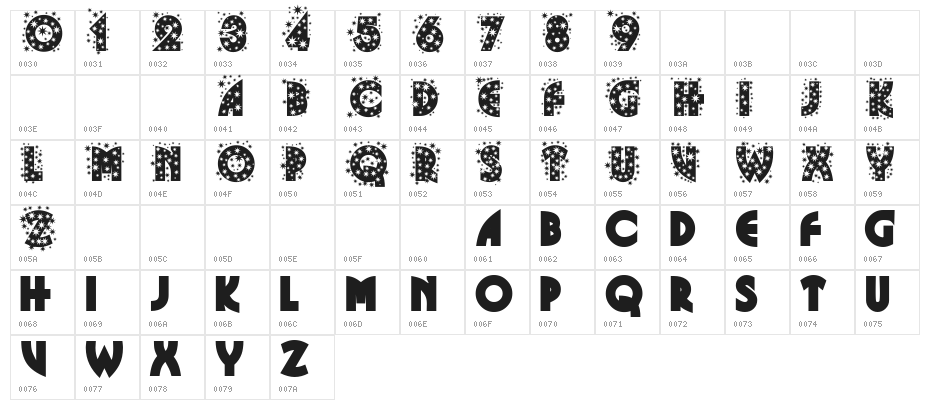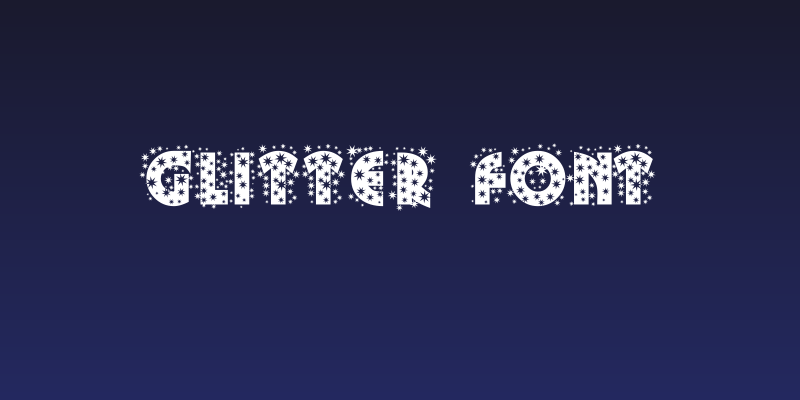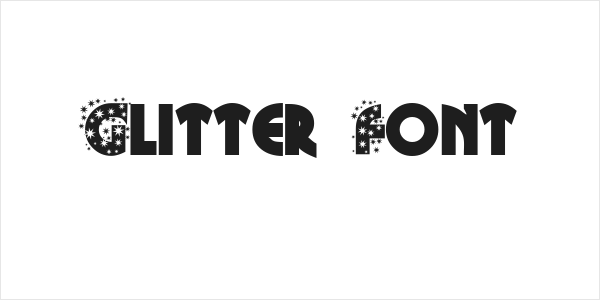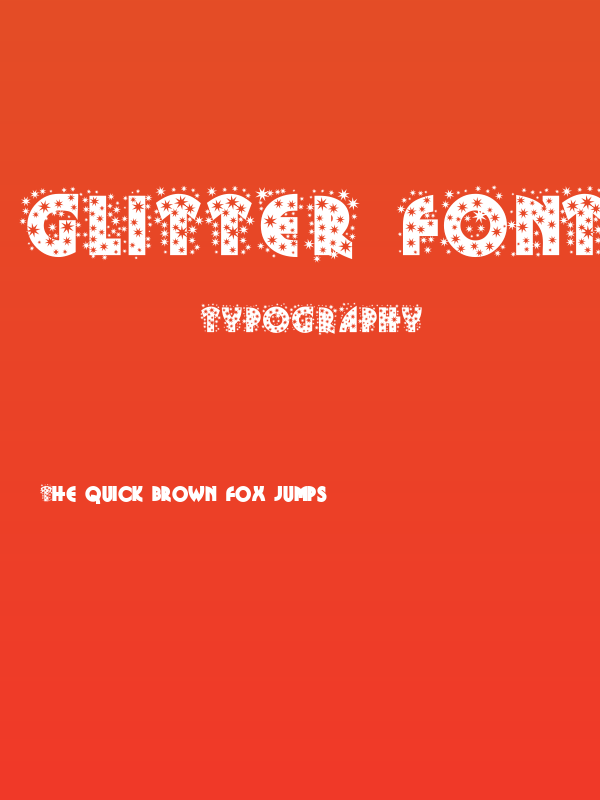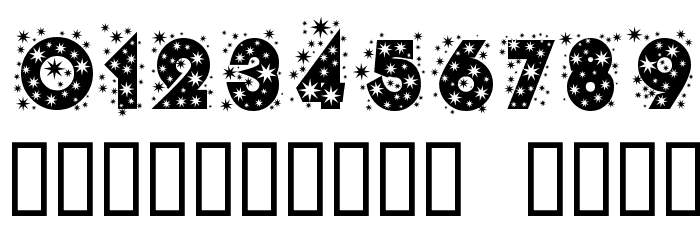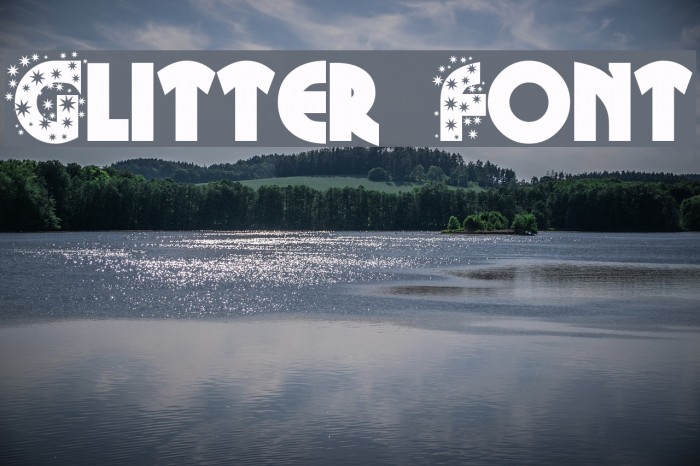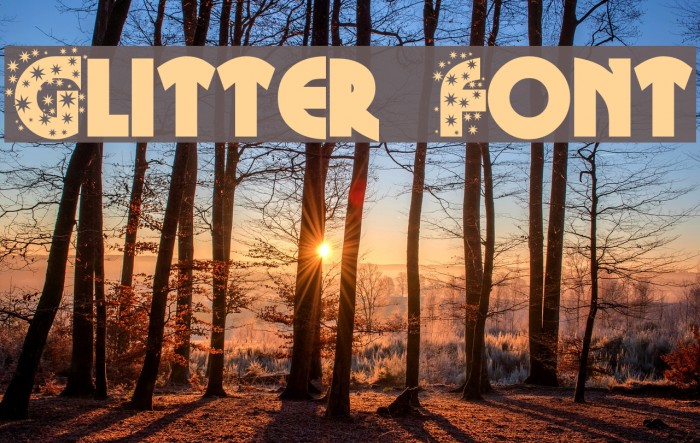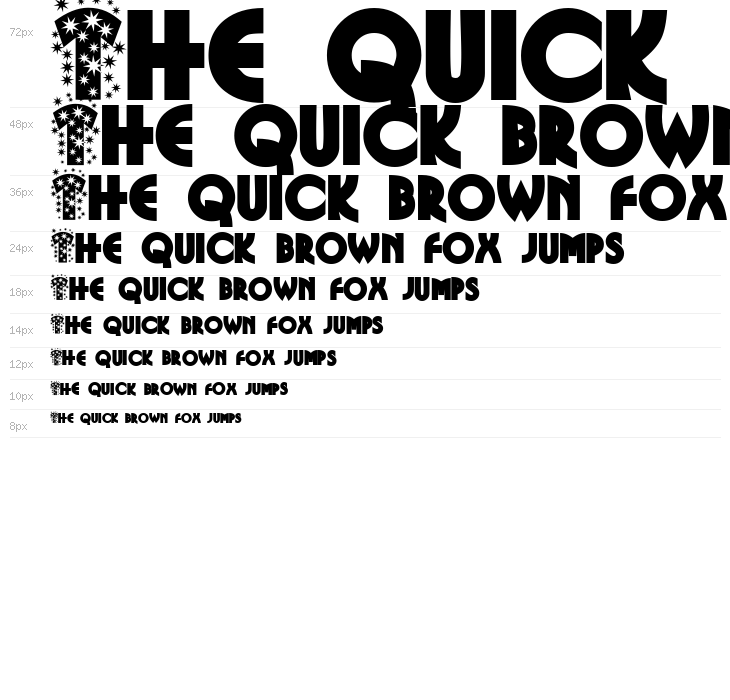
Glitter Font Font
Fonts by Omega Font Labs
| Vorgeschlagene Projekte | Ideal for party invitations, holiday graphics, and children's event posters. |